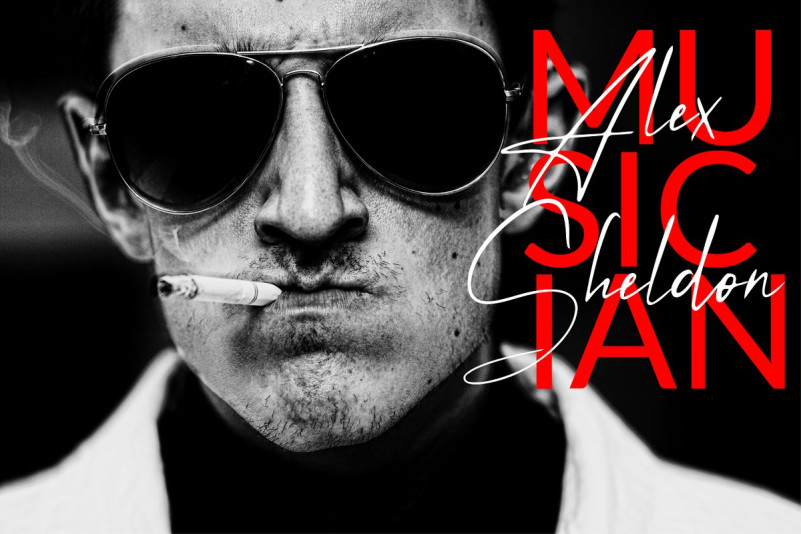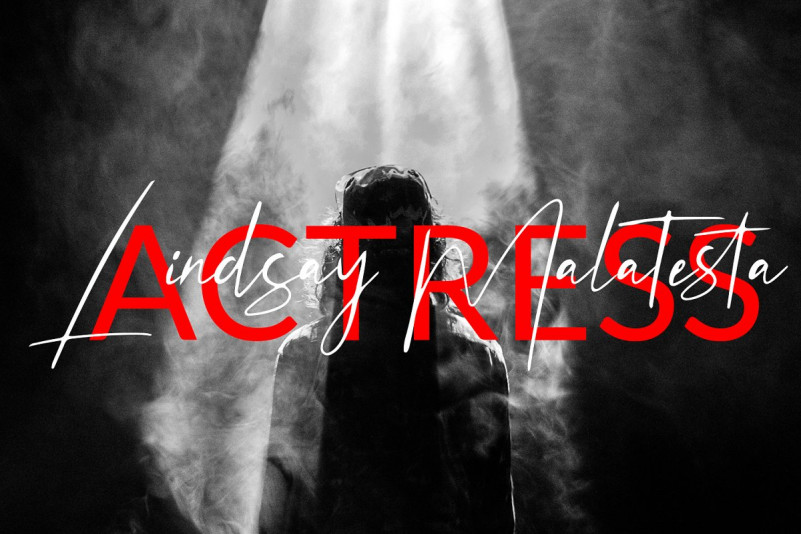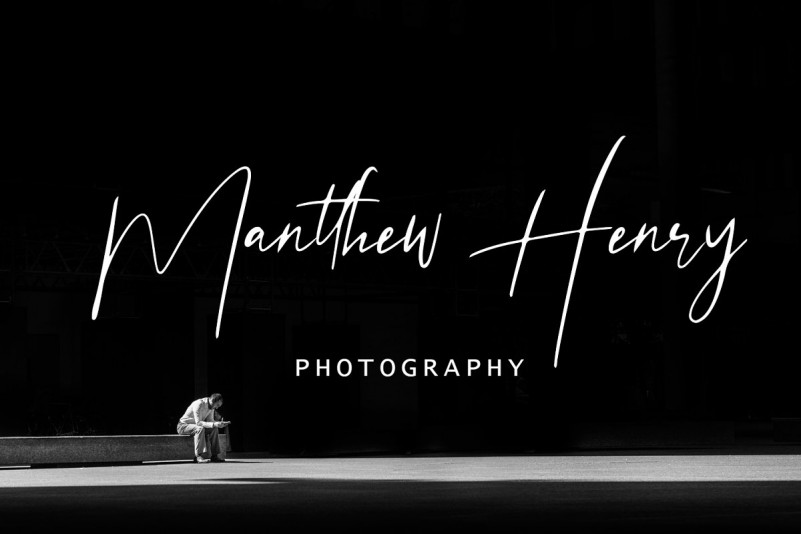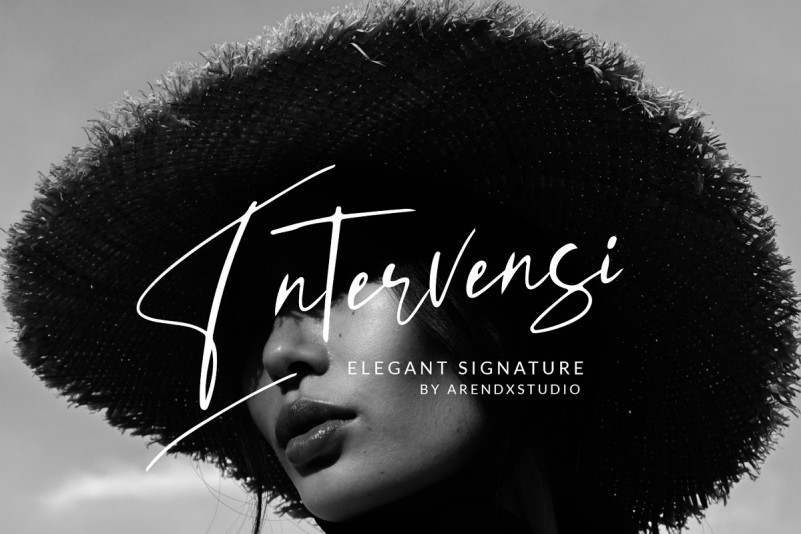
Intervensi Signature Font
Say hello to Intervensi Font. This is a feminine type Hanwritten with a monoline script texture that you can use to perfect your design. It can be tricky to find typefaces that can convey the feeling of personal warmth that comes from a handwritten note, custom brandings, special series of products, especially as we type more and write with a pen or pencil less and less. Intervensi Signature is using style hand made with brushing. bromello a beautiful for wedding card design, logotype, website header, fashion design and any more.